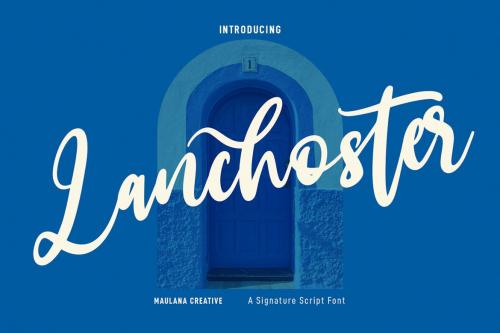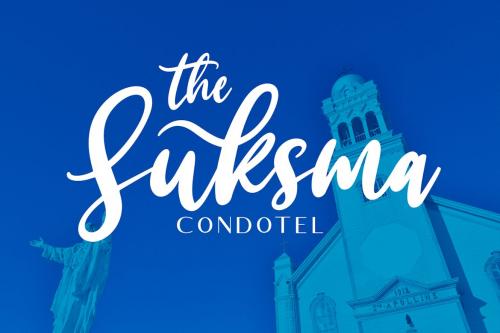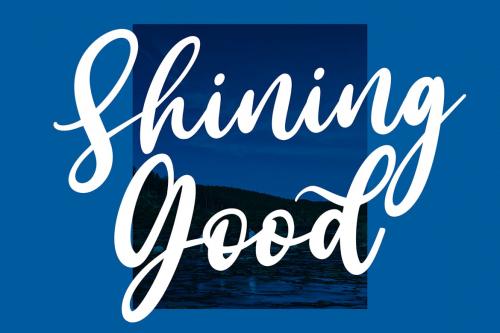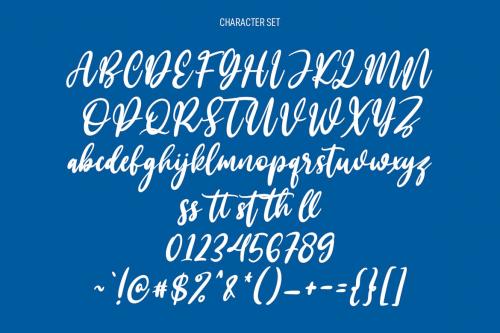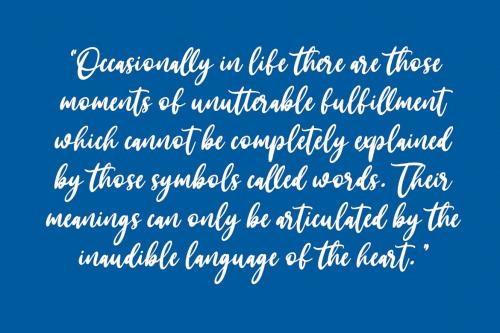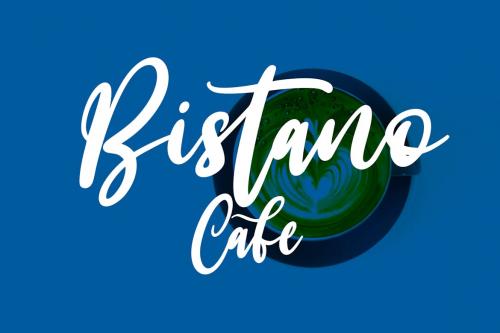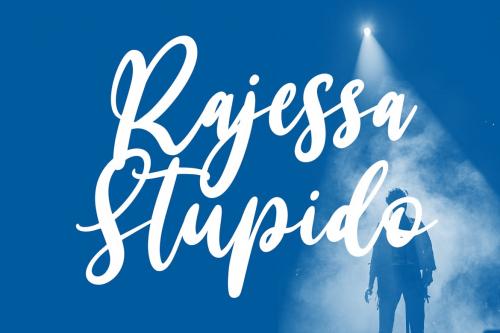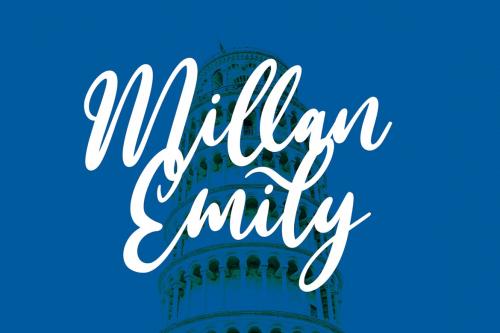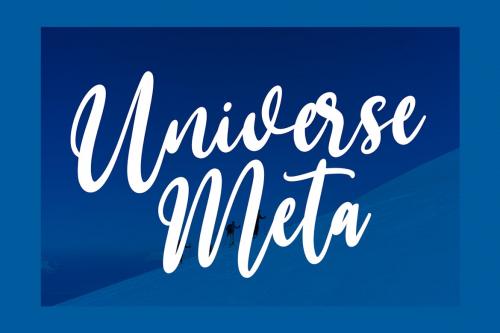
landoyster Script Font
Lanchoster Script Font
Lanchoster is an elegant handwritten script typeface. It features a moderate contrast stroke, playful characters with some ligatures and alternate glyphs. This font is designed to enhance your creativity. Lanchoster supports over 100 languages, making it versatile for various projects such as logo design, social media posts, movie titles, book titles, short or long text compositions, and as a secondary font paired with sans-serif or serif typefaces. Create impressive designs with Lanchoster font.
Lanchoster is a fancy handwritten script font. With medium contrast stroke, fun character with a bit of ligatures and alternates. To give you an extra creative work. Lanchoster font support multilingual more than 100+ language. This font is good for logo design, Social media, Movie Titles, Books Titles, a short text even a long text letter and good for your secondary text font with sans or serif. Make a stunning work with Lanchoster font.